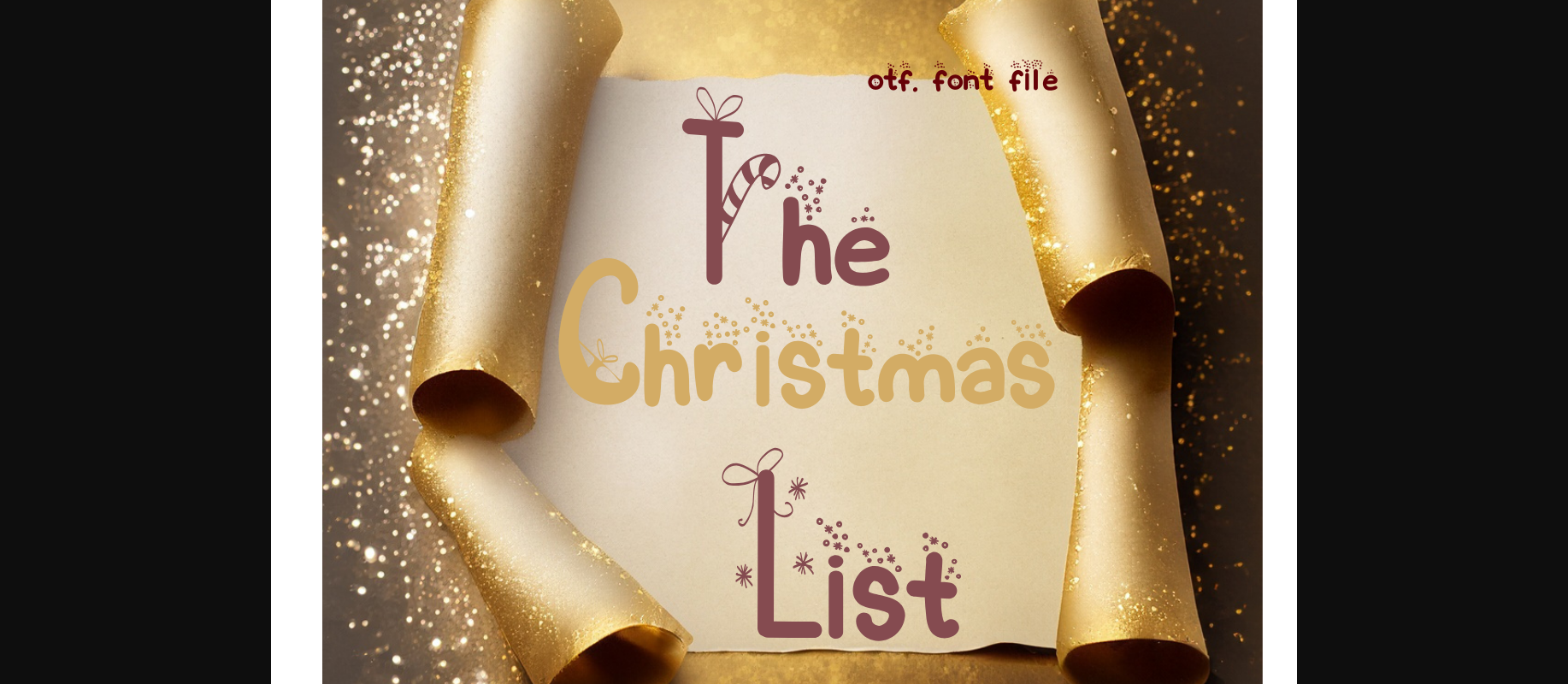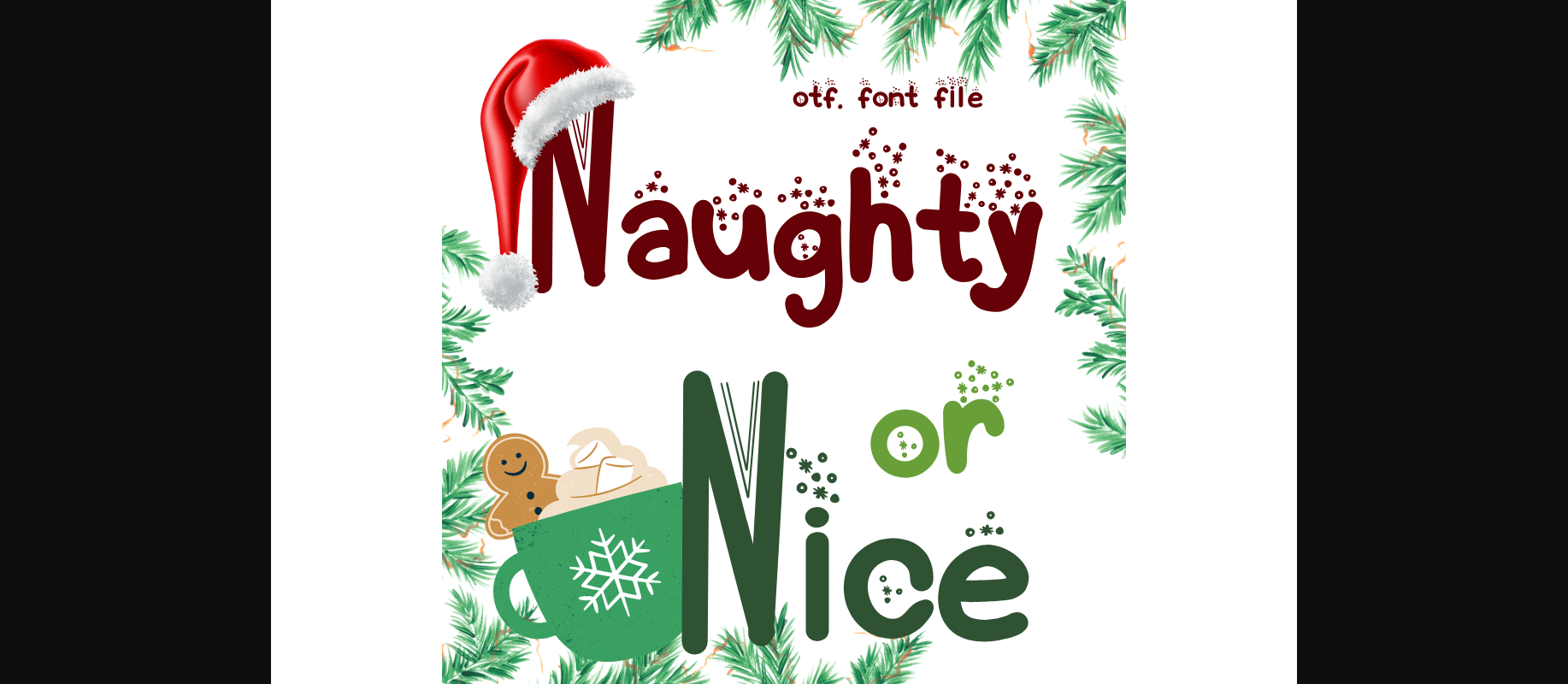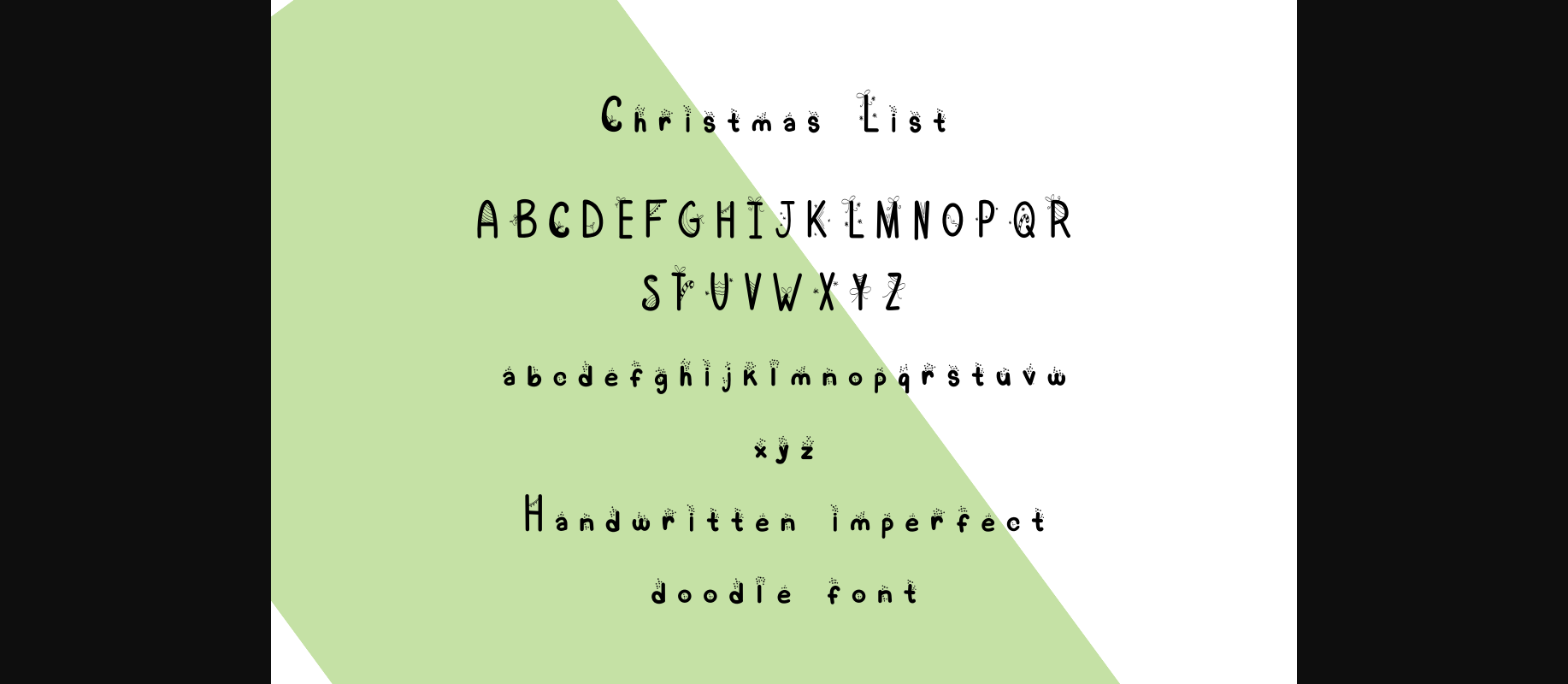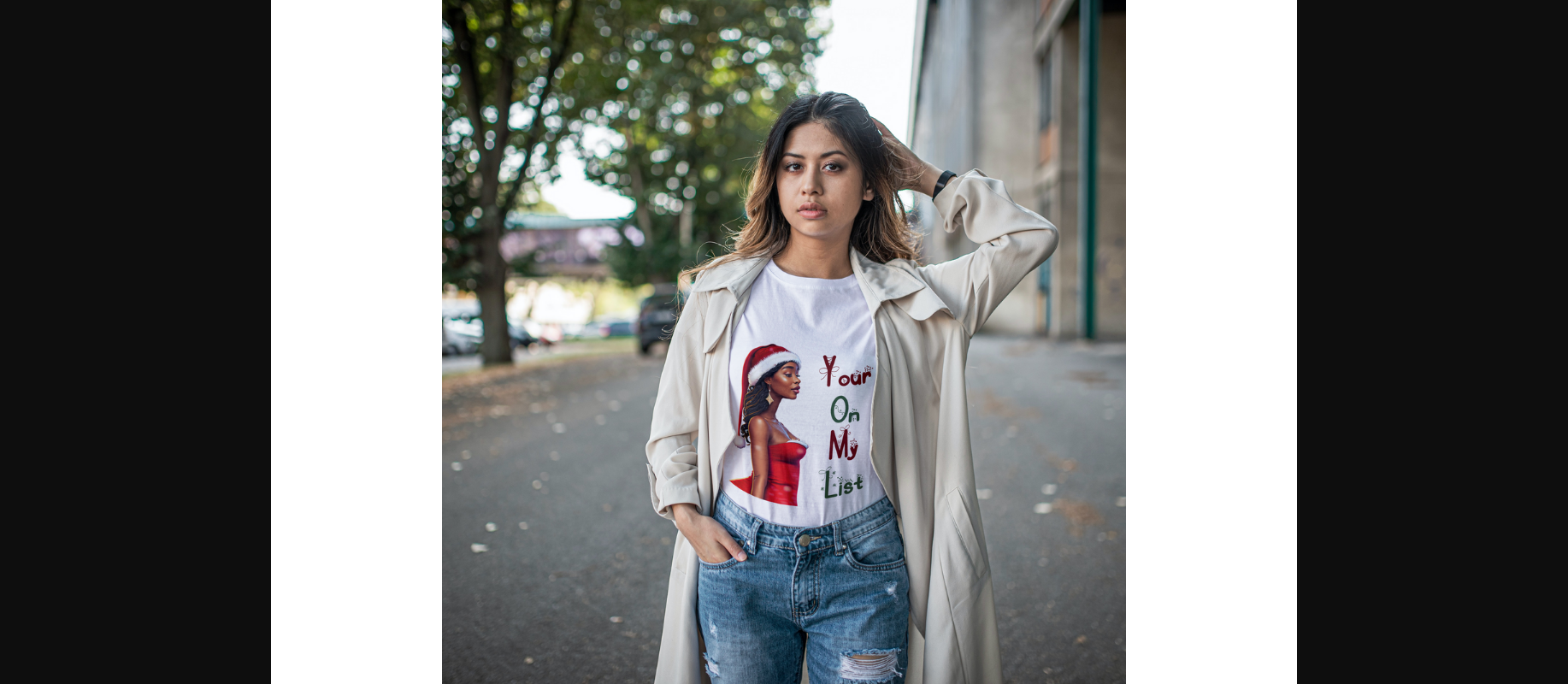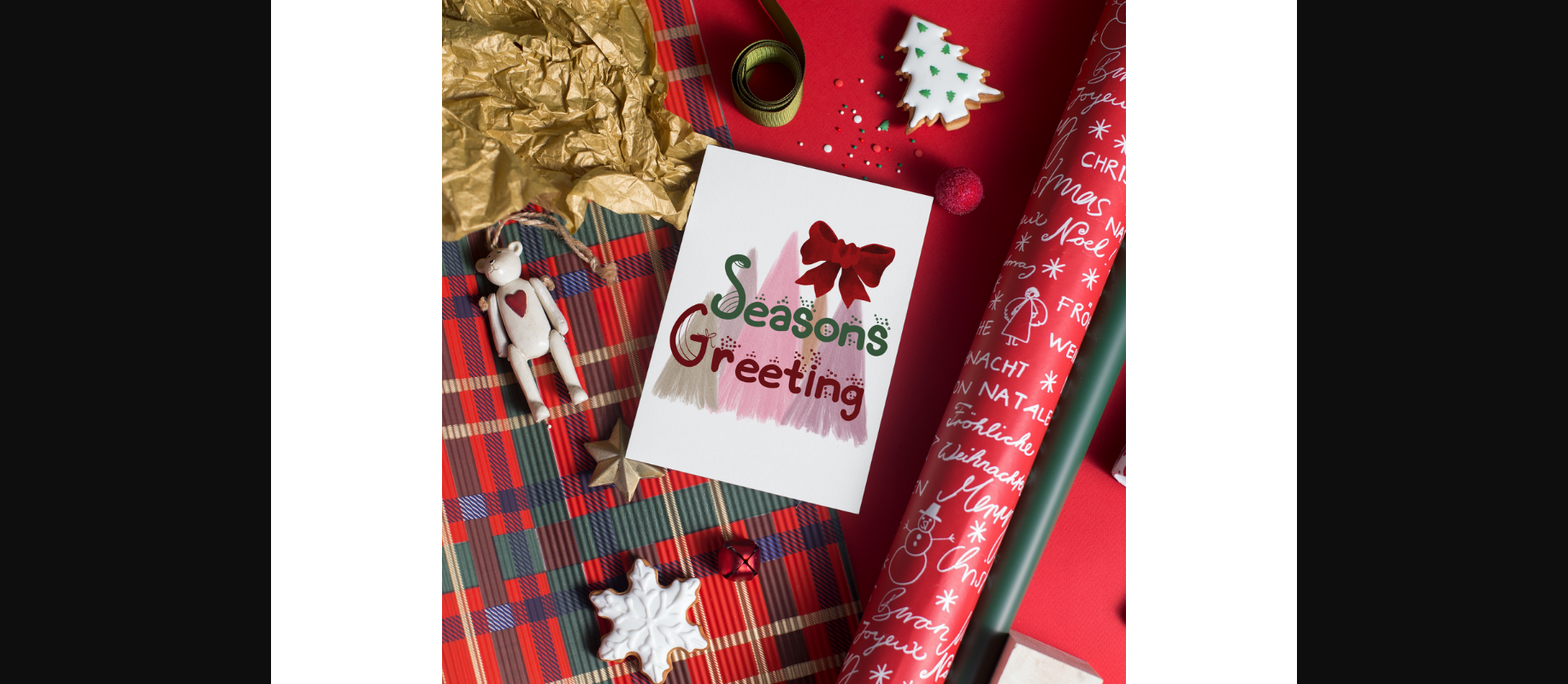
Christmas List Font
About Christmas List Font
Christmas List Font: A festive and whimsical typeface adorned with charming tiny Christmas decorations wrapped around each letter. Perfect for adding a touch of holiday cheer to your festive designs and holiday-themed projects.